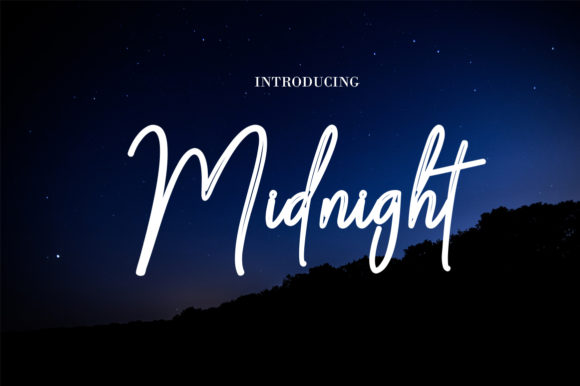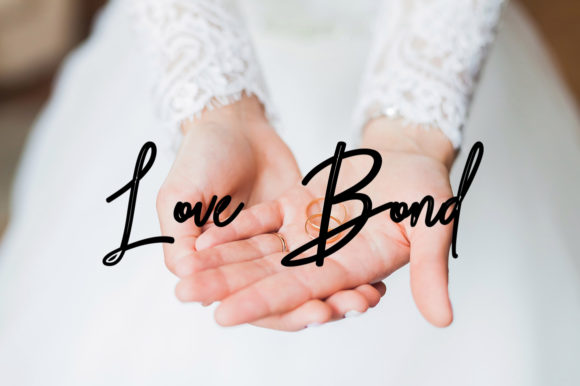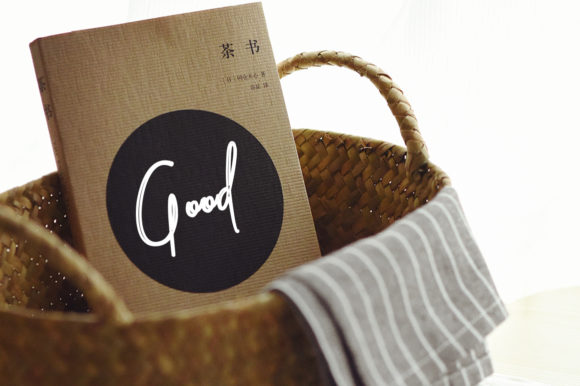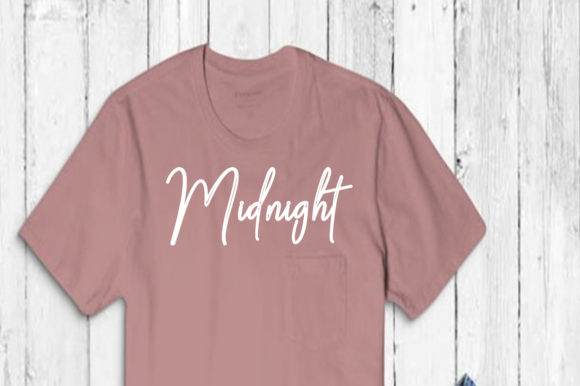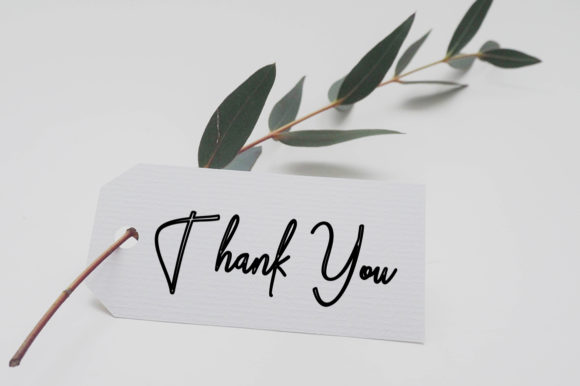
Midnight Font
About Midnight Font
The Midnight is a modern script font with handmade calligraphy. It has decorative characters and a dancing linage which makes it perfect for greeting cards, branding material, business cards, quotes, posters, and much more!